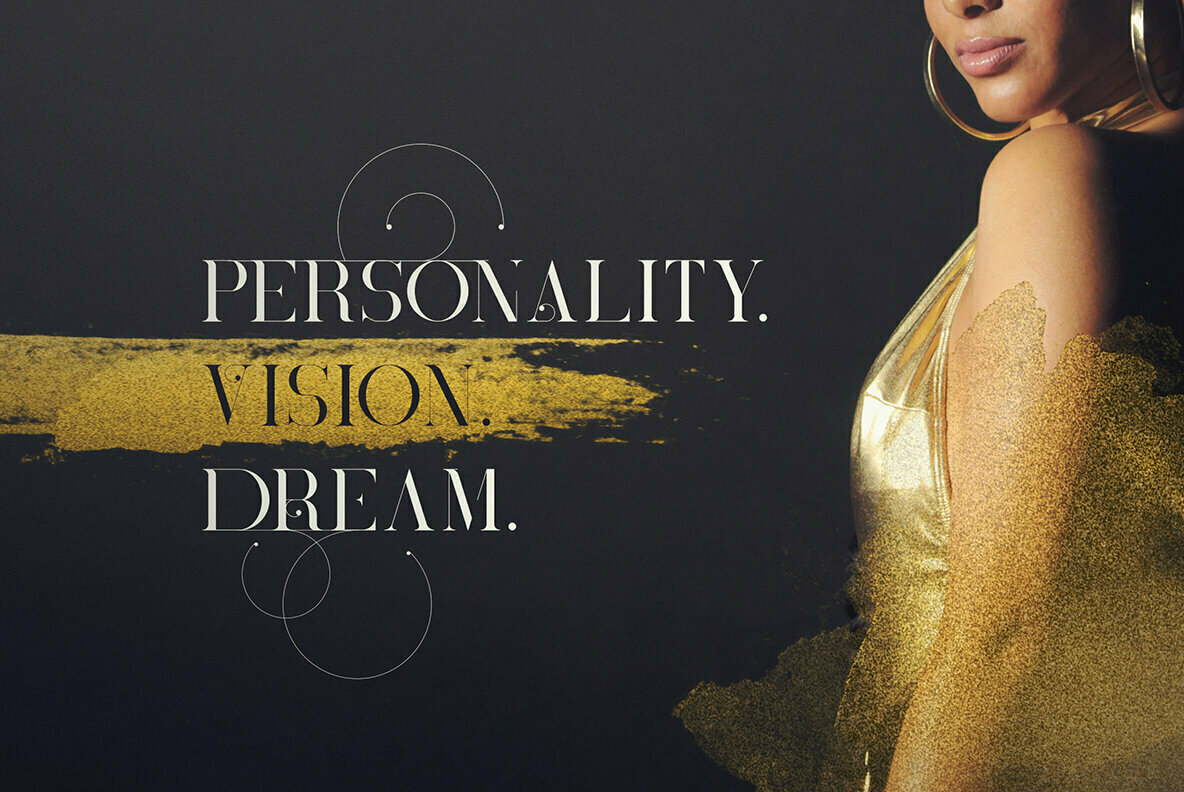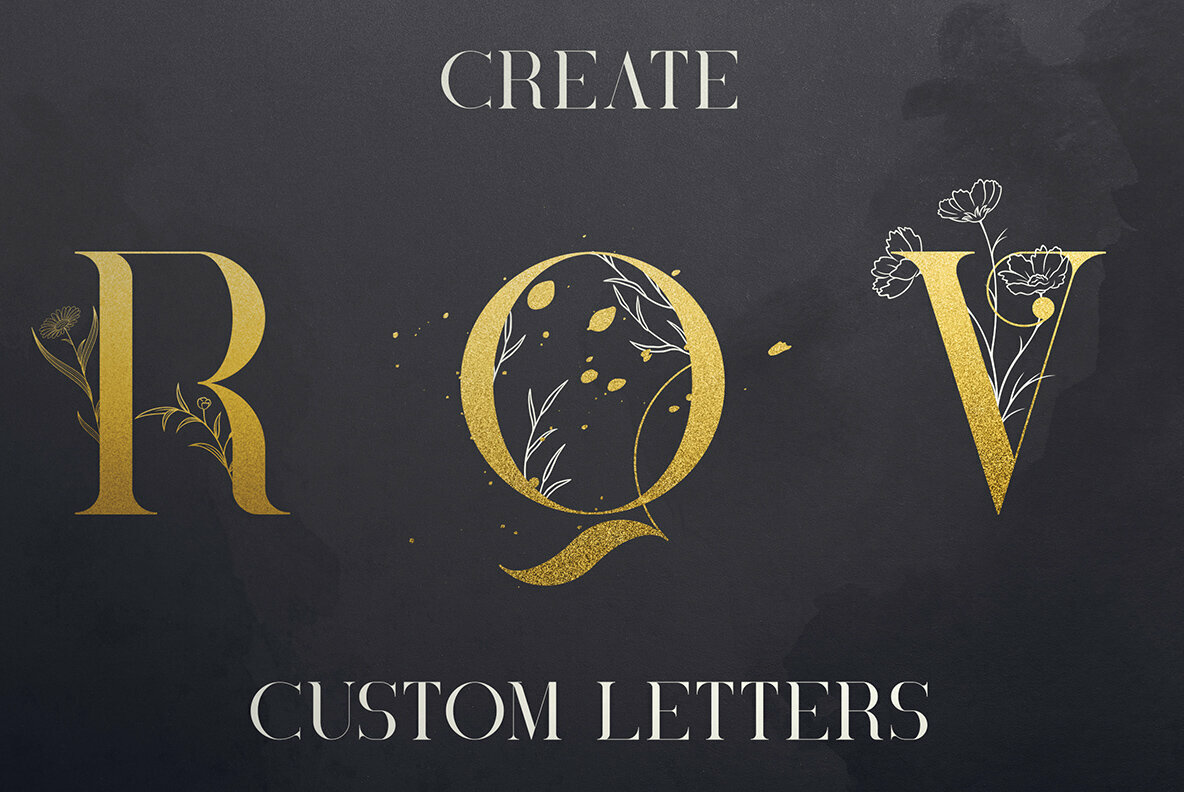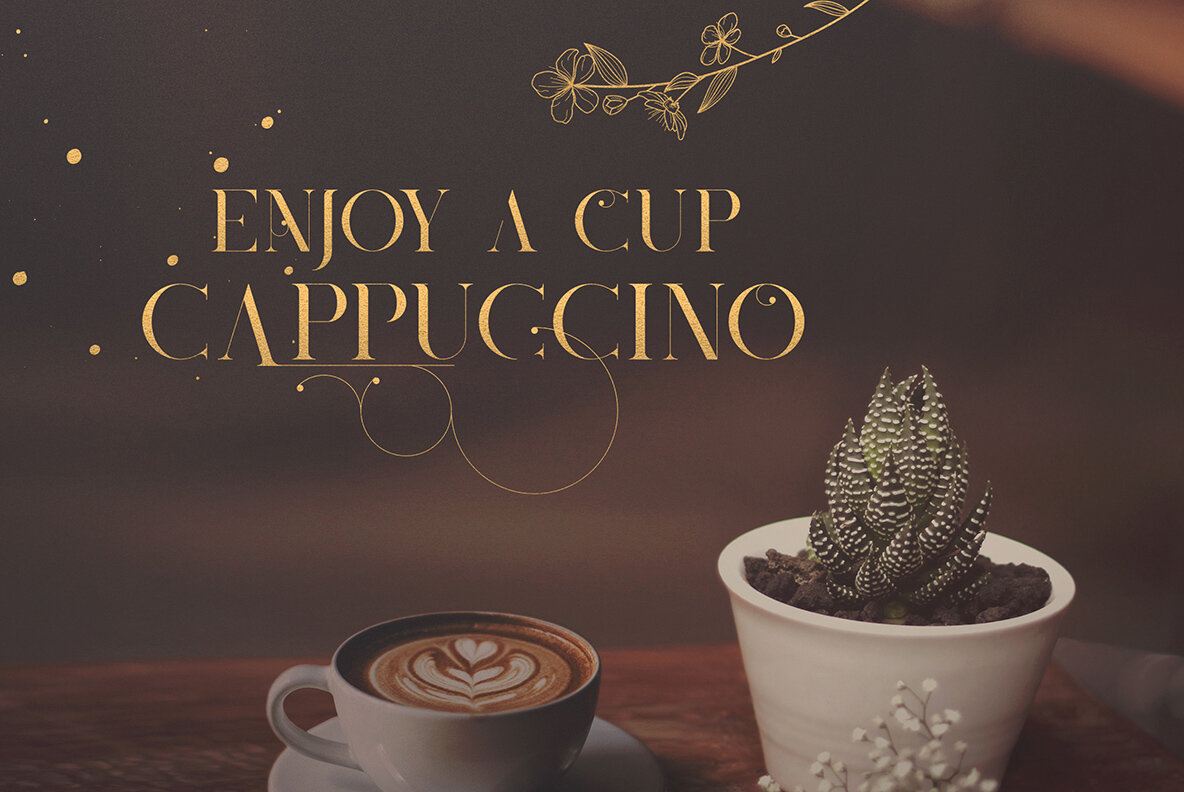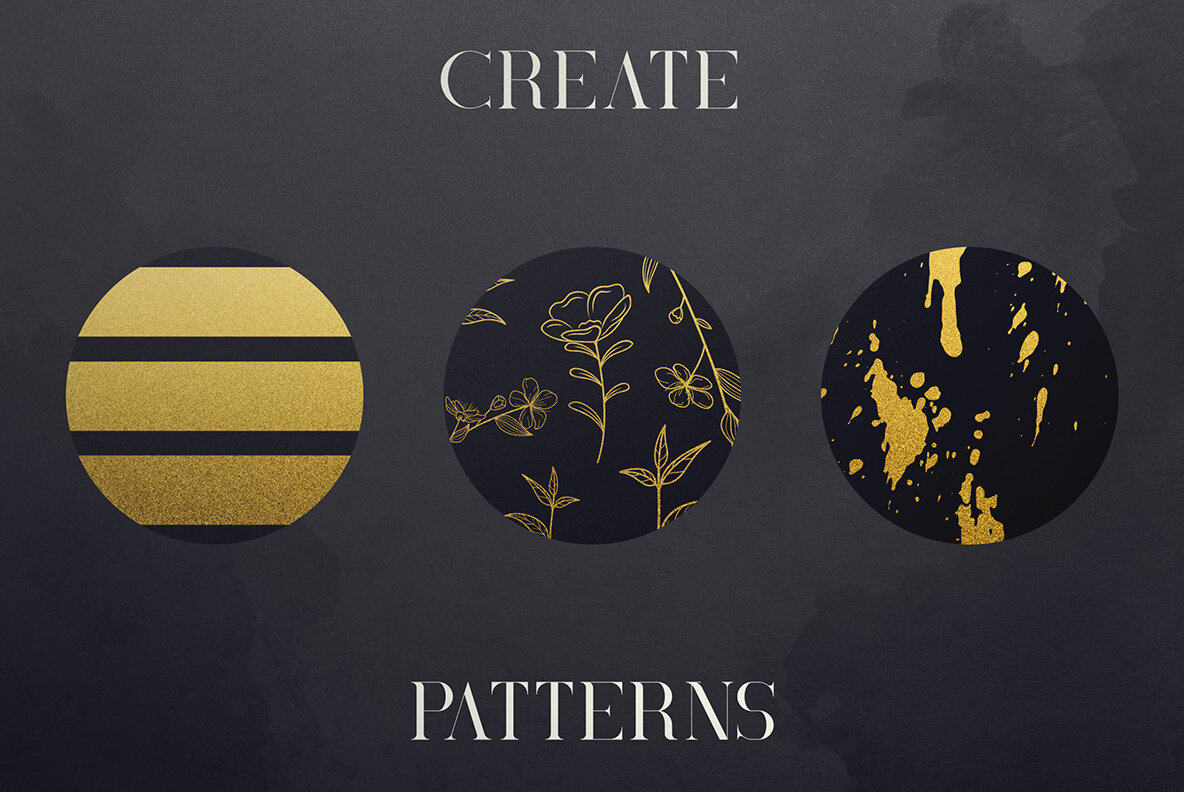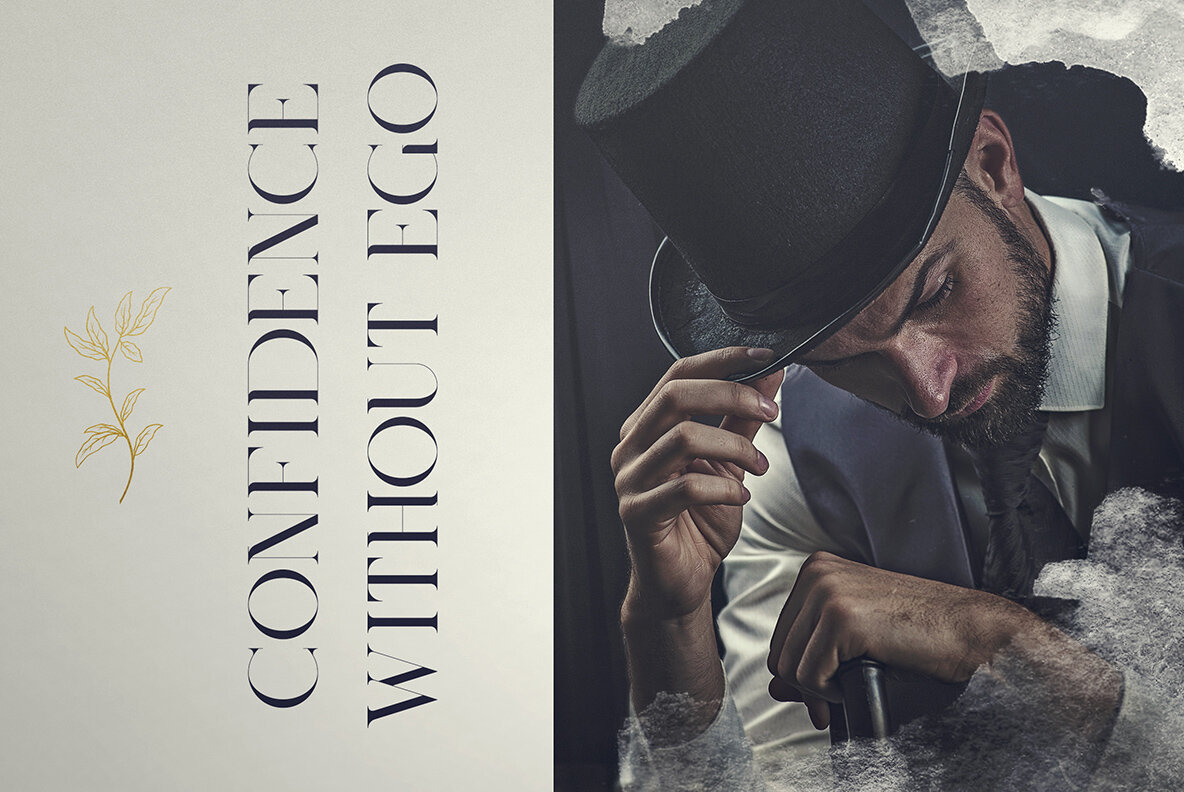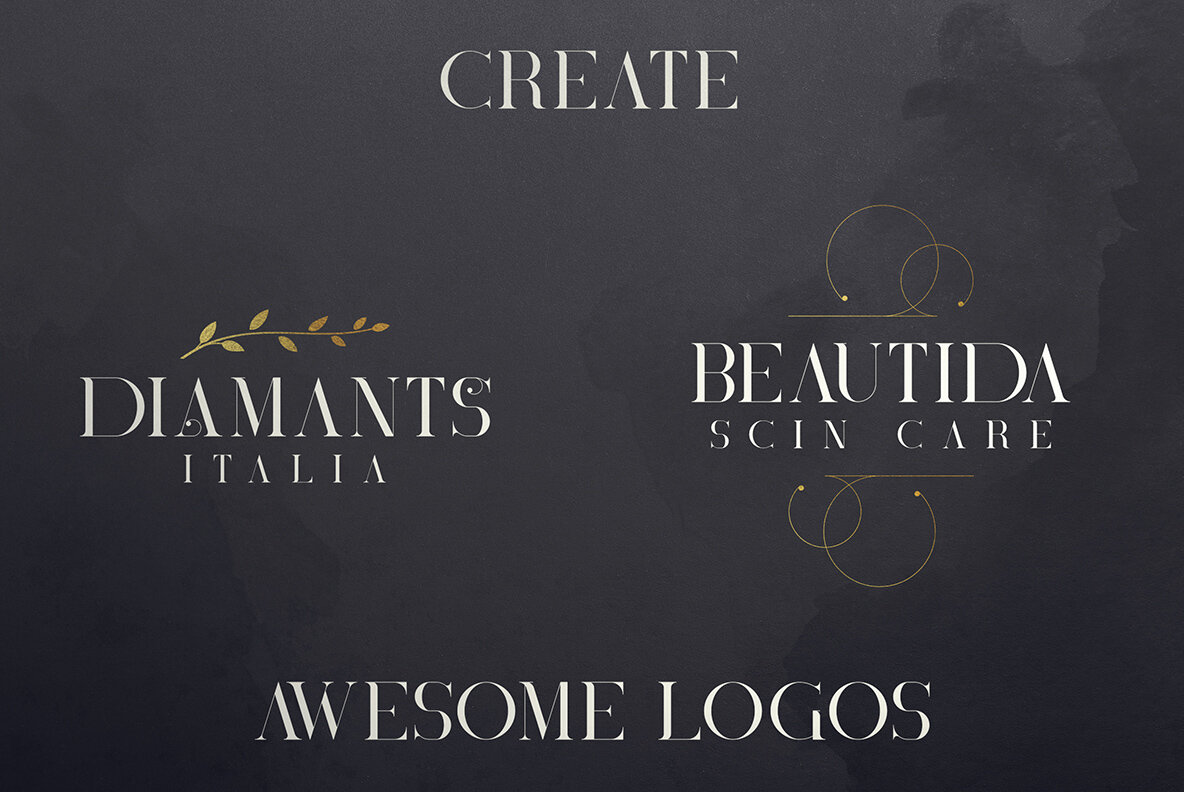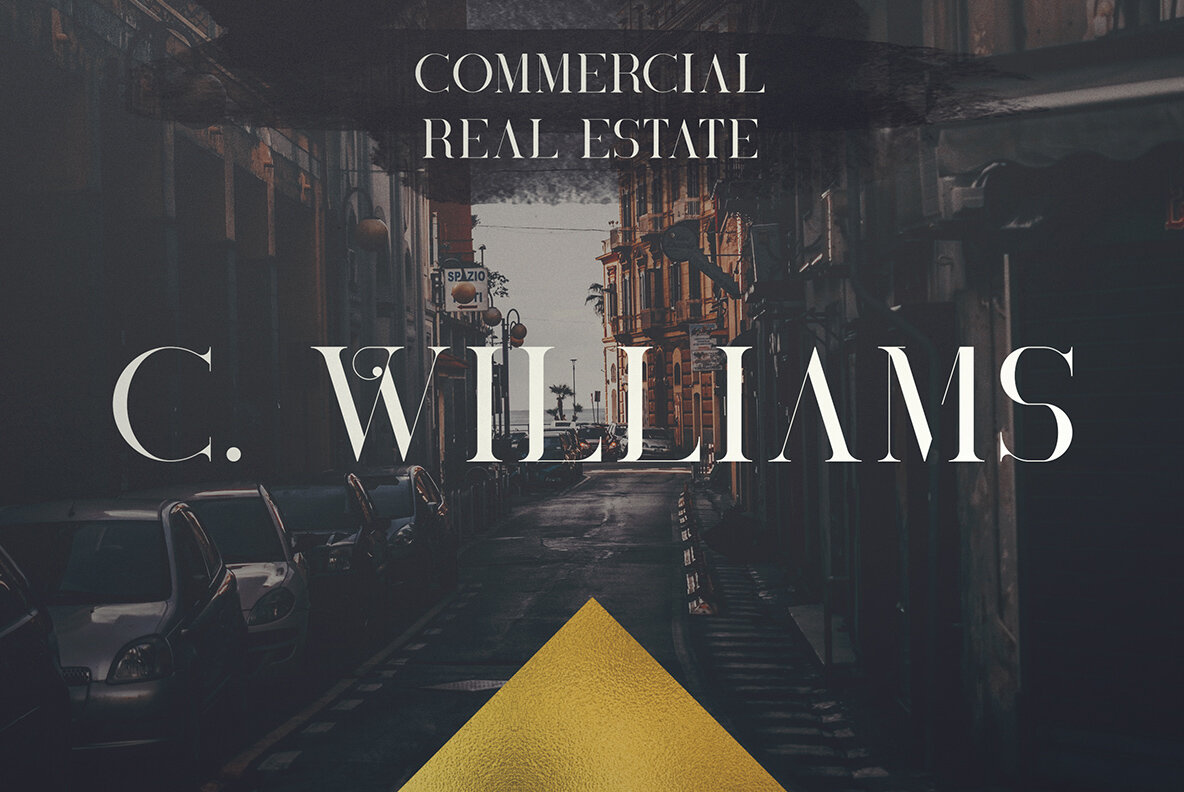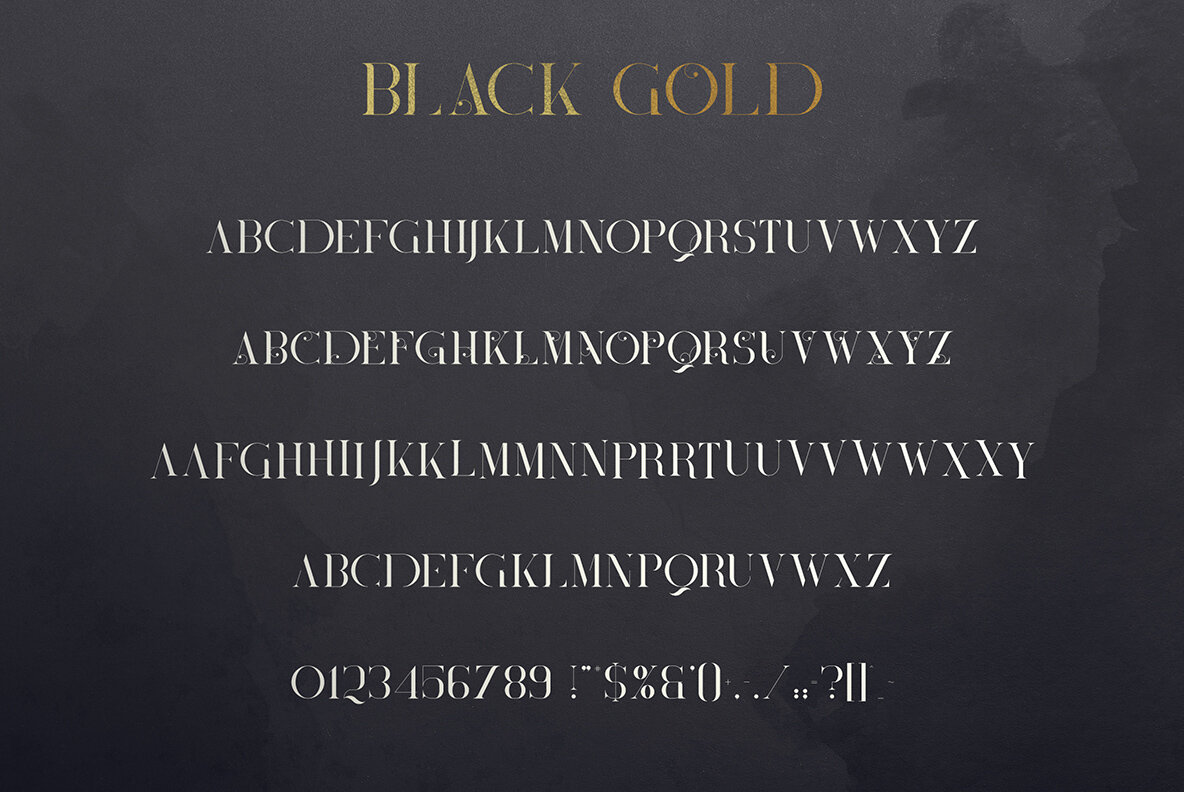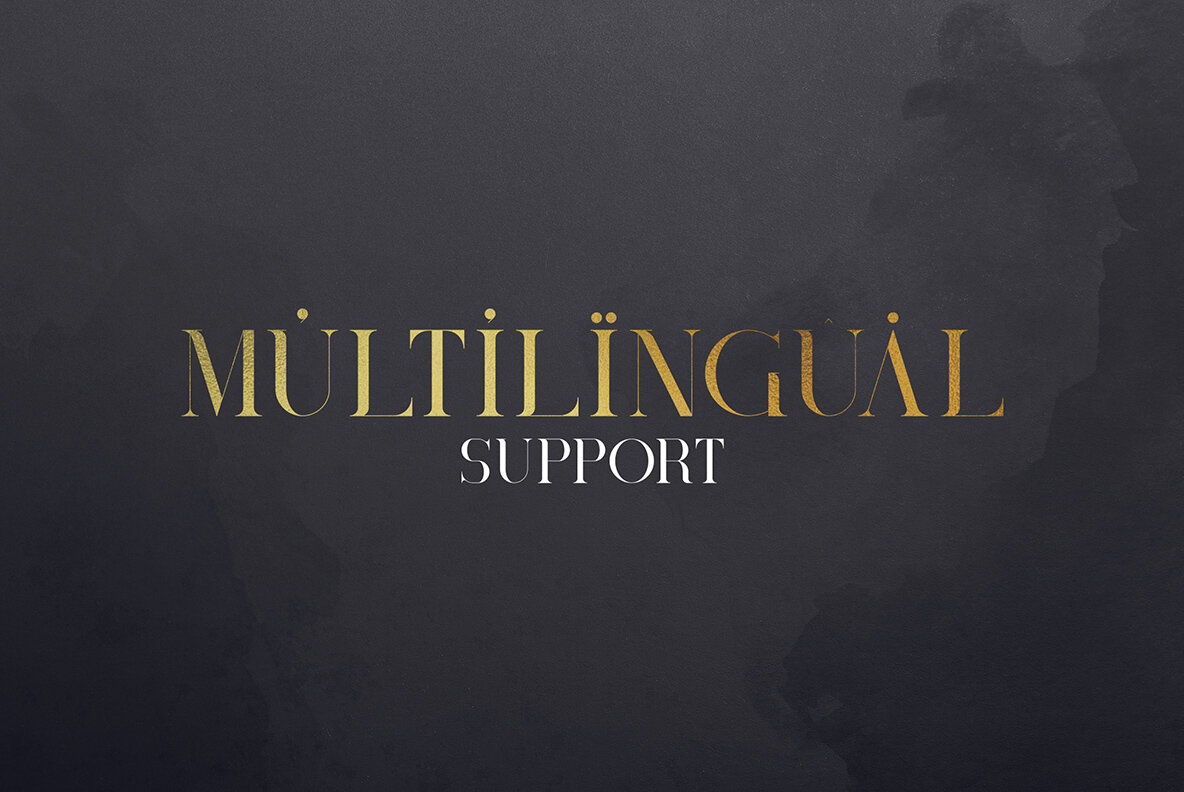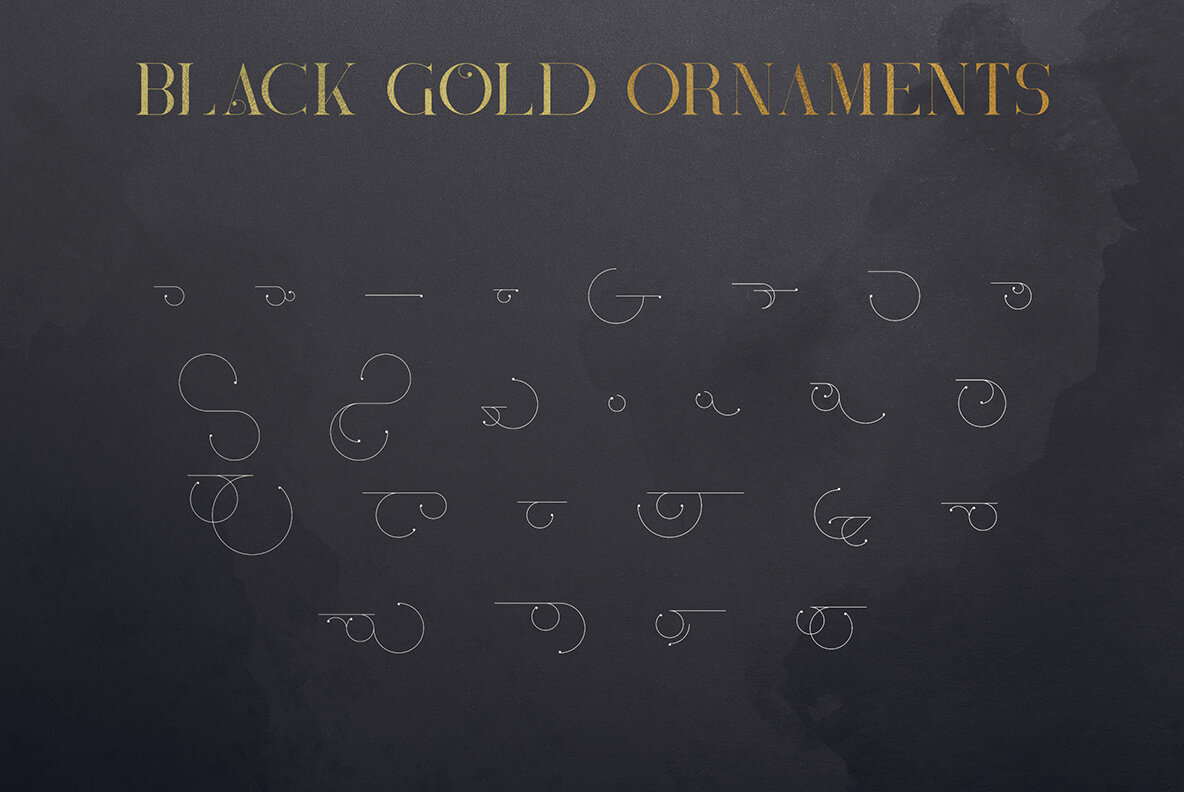
Black Gold Font
Black Gold offers a refined elegance, perfect for infusing your design projects with a touch of sophistication. This versatile serif font is enhanced with a multitude of alternative glyphs, exquisite ornaments, nature-inspired elements, and diverse ink marks, ensuring it beautifully suits both large and small applications. Ideal for an array of branding endeavors, from homeware designs to product packaging and magazine headers, Black Gold serves as a striking text overlay that complements any background image. Its extensive multilingual support furthers its appeal among discerning designers.Black Gold: A Sophisticated Serif Font Collection